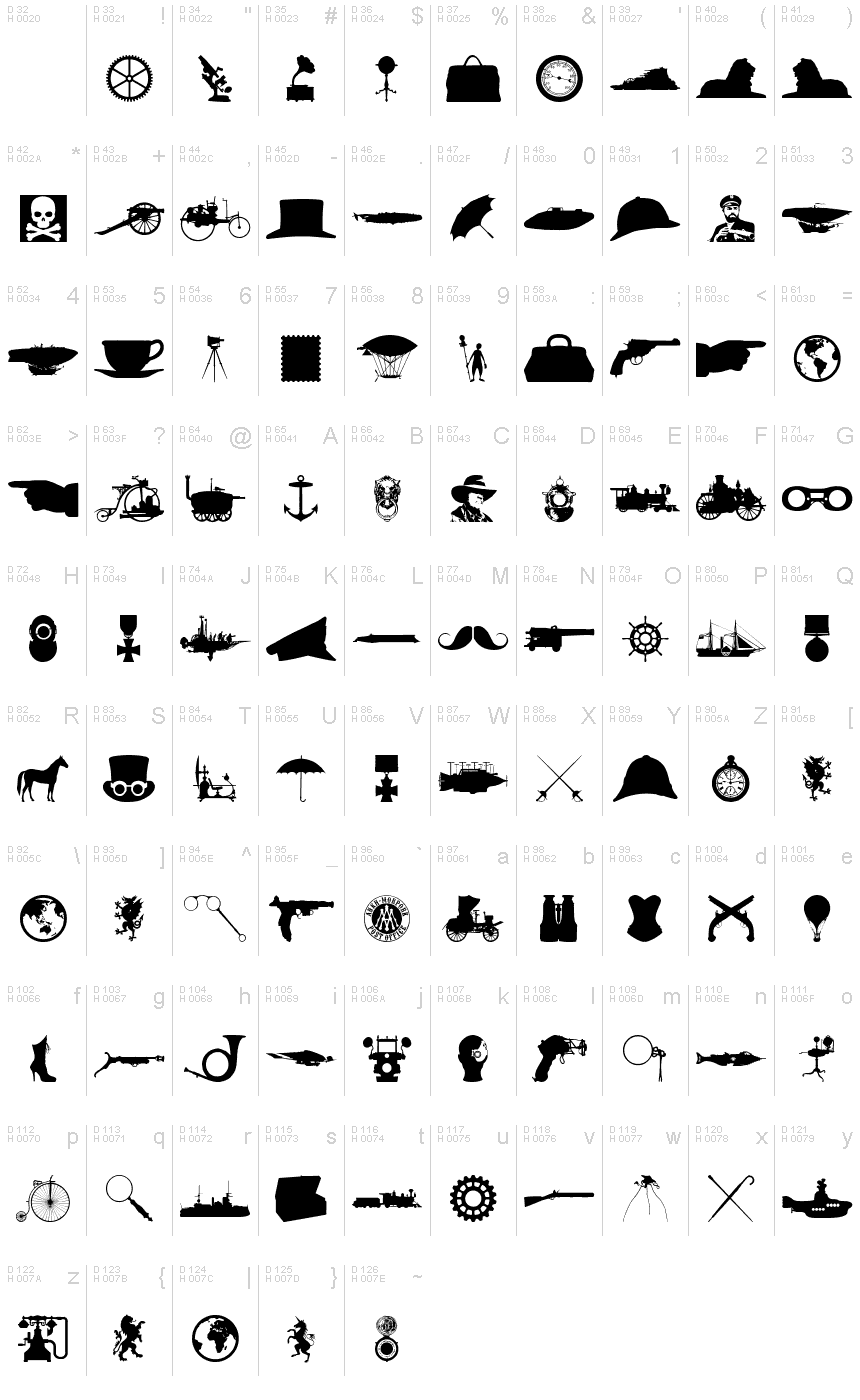
Steampunk
More than 120 steampunk icons. Many icons identified in SteamCloud infographic https://www.flickr.com/photos/ricstephens/50769036831/in/datetaken-public/